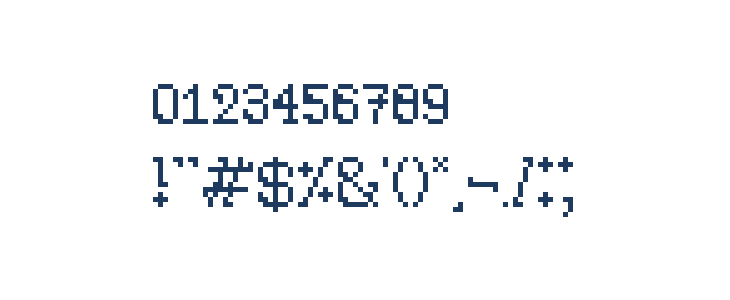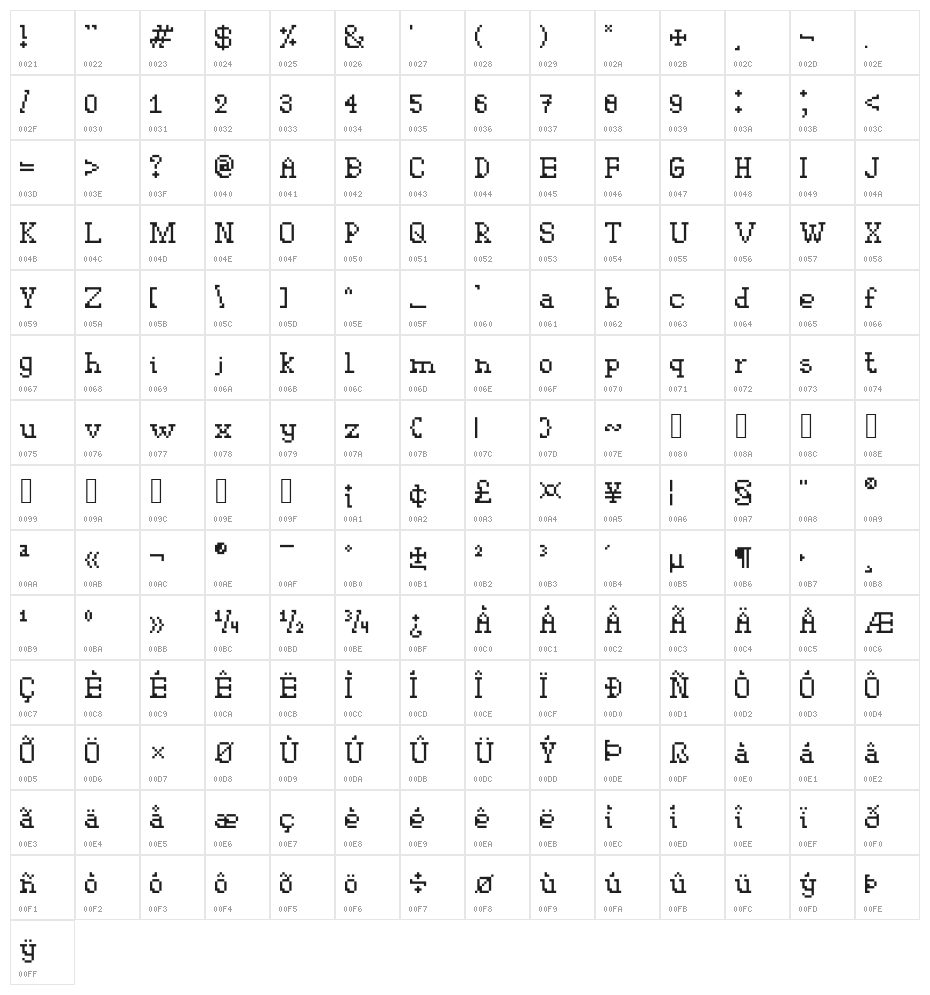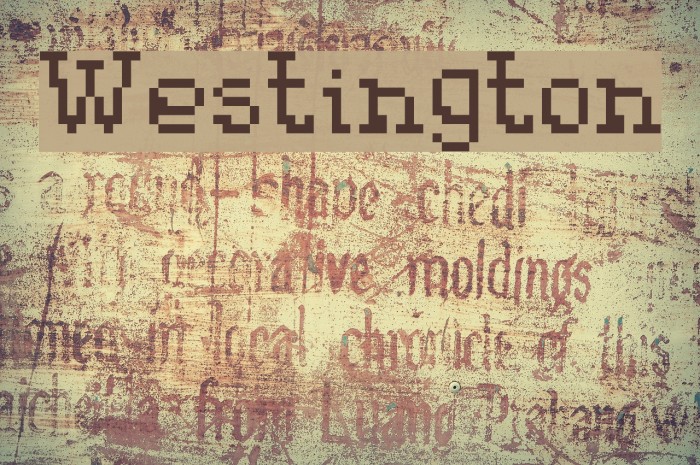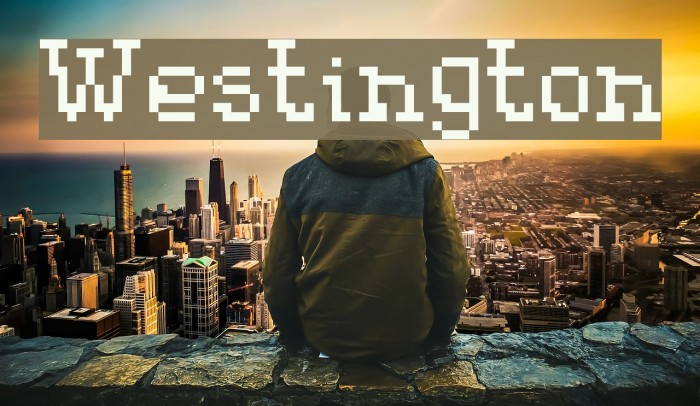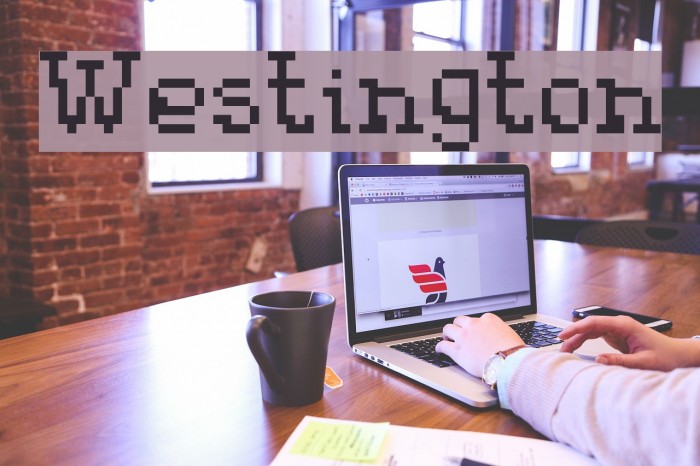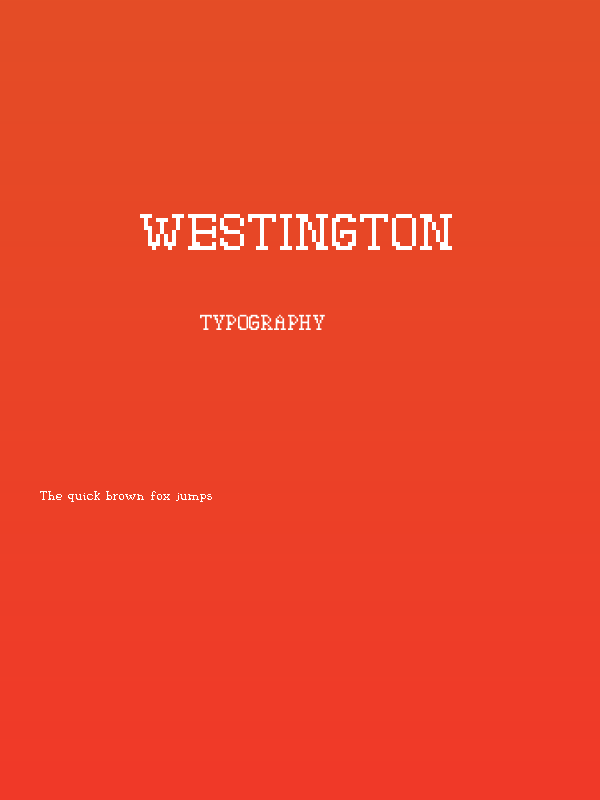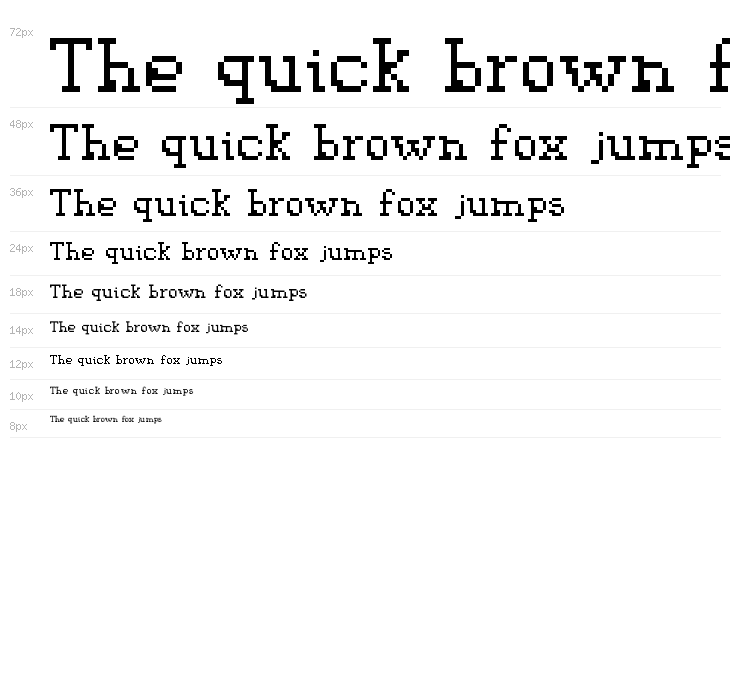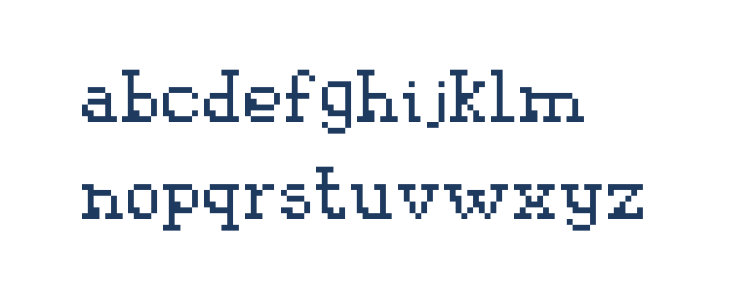
Westington Font
Westington Description
This font features a pixelated, blocky design reminiscent of early digital displays and retro video games. Each character is composed of a grid of square pixels, giving it a distinctly digital and vintage feel. The uppercase and lowercase letters maintain a consistent height and width, contributing to a uniform appearance. Numbers and special characters follow the same pixelated style, ensuring a cohesive look across all glyphs. The font's design is straightforward, with no additional embellishments or curves, emphasizing its utilitarian and nostalgic aesthetic.
Overall StyleVintage
Use CaseLogos, Headlines, Digital Art
Proposed ProjectsIdeal for retro video game designs, digital art projects, and any creative work that seeks to evoke a sense of nostalgia for early computing and gaming eras.